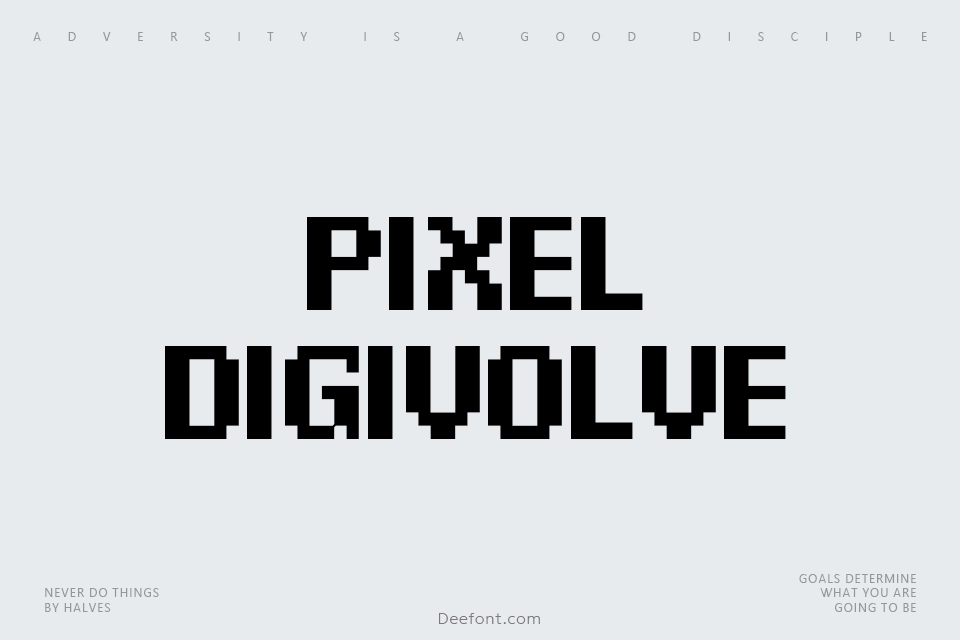
Pixel Digivolve Font
Pixel Digivolve is a retro pixel typeface inspired by the classic Digimon anime series title logo. This bold, geometric font features a square, blocky structure perfect for gaming, digital design, and nostalgic branding projects. With its distinctive pixelated aesthetic, Pixel Digivolve delivers authentic 8-bit charm across display applications. The font includes regular and italic variations, full alphanumerics, extended punctuation, and Euro symbol support, making it versatile for both creative and commercial design endeavors seeking a timeless digital character.